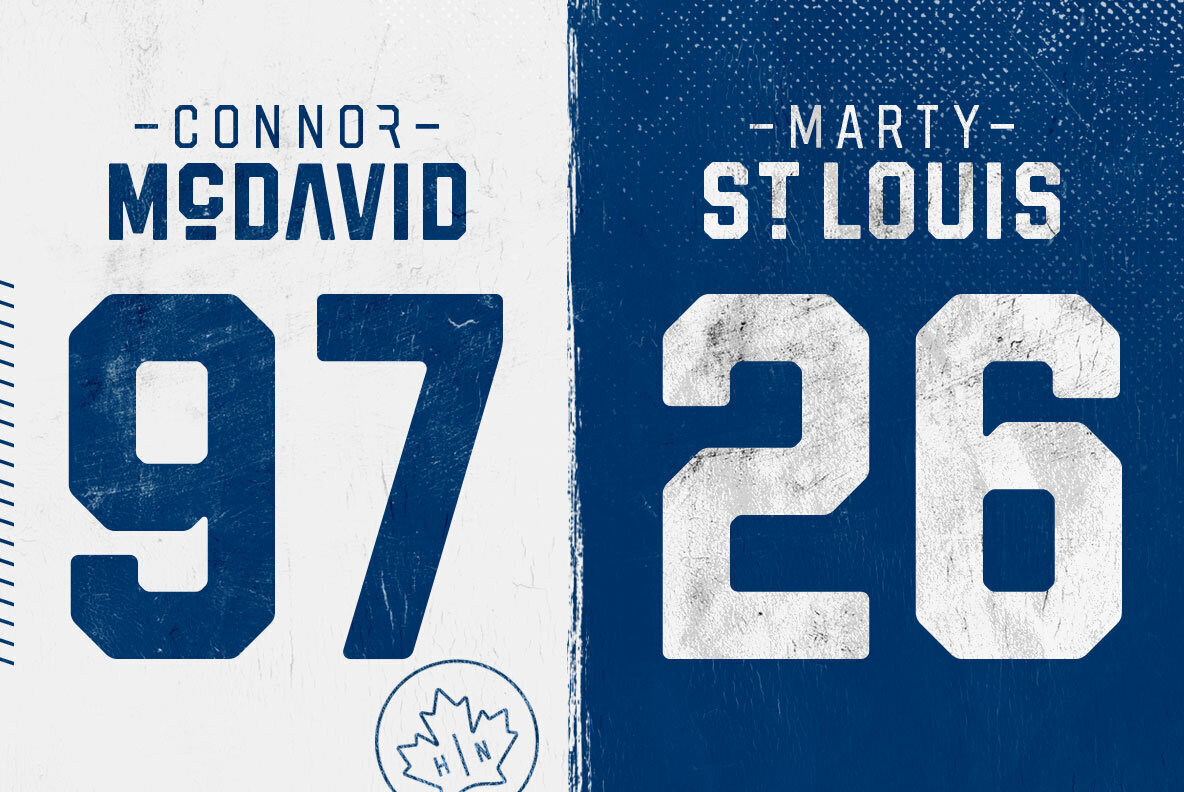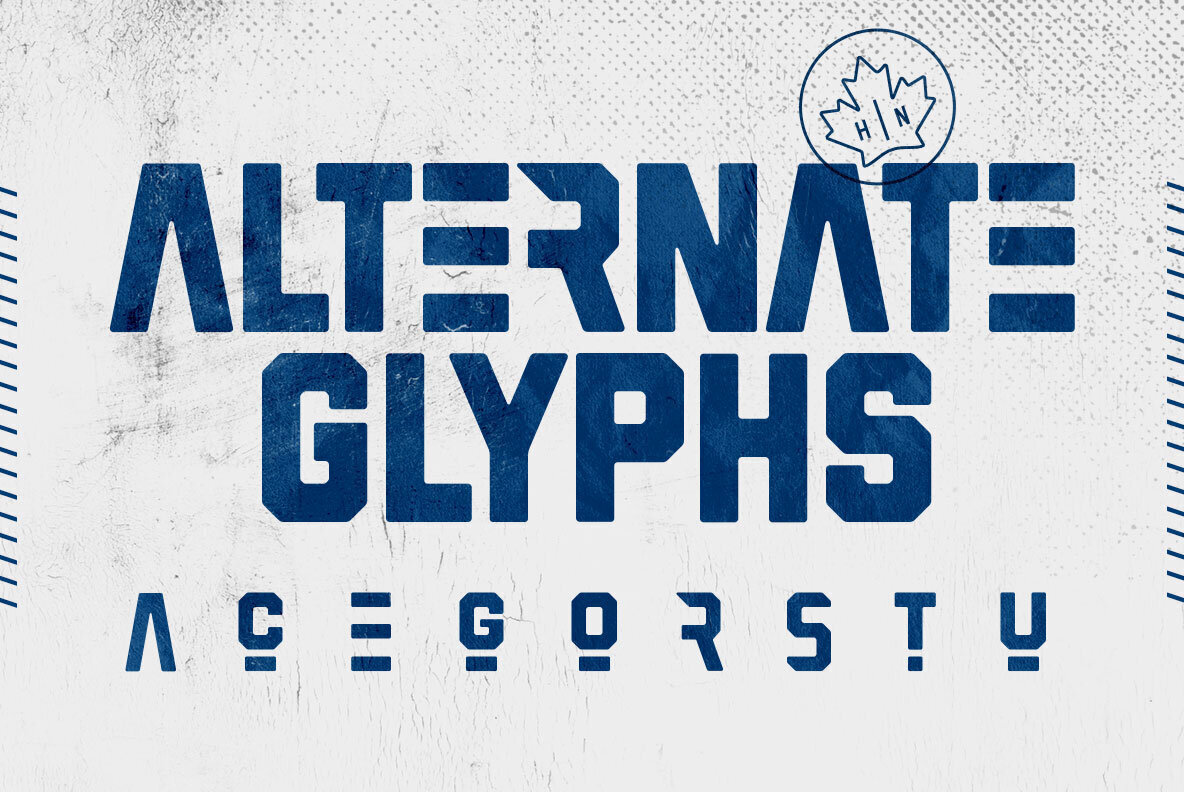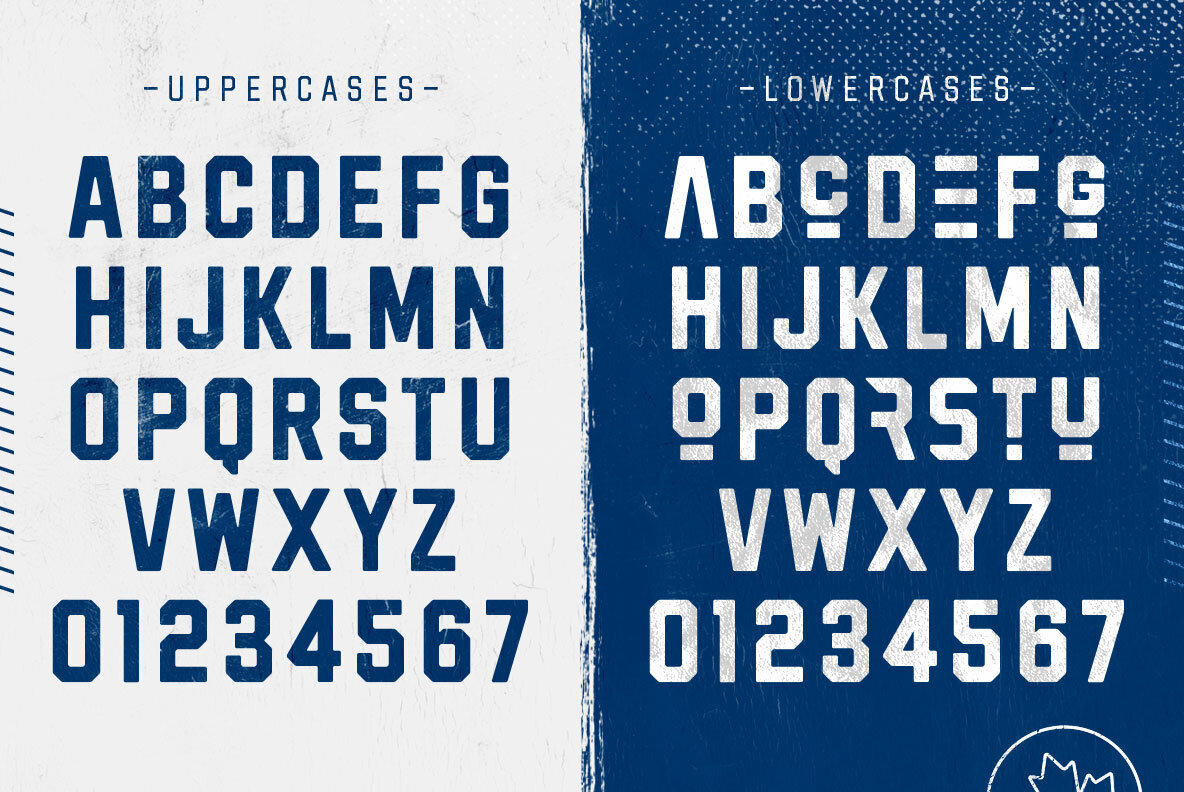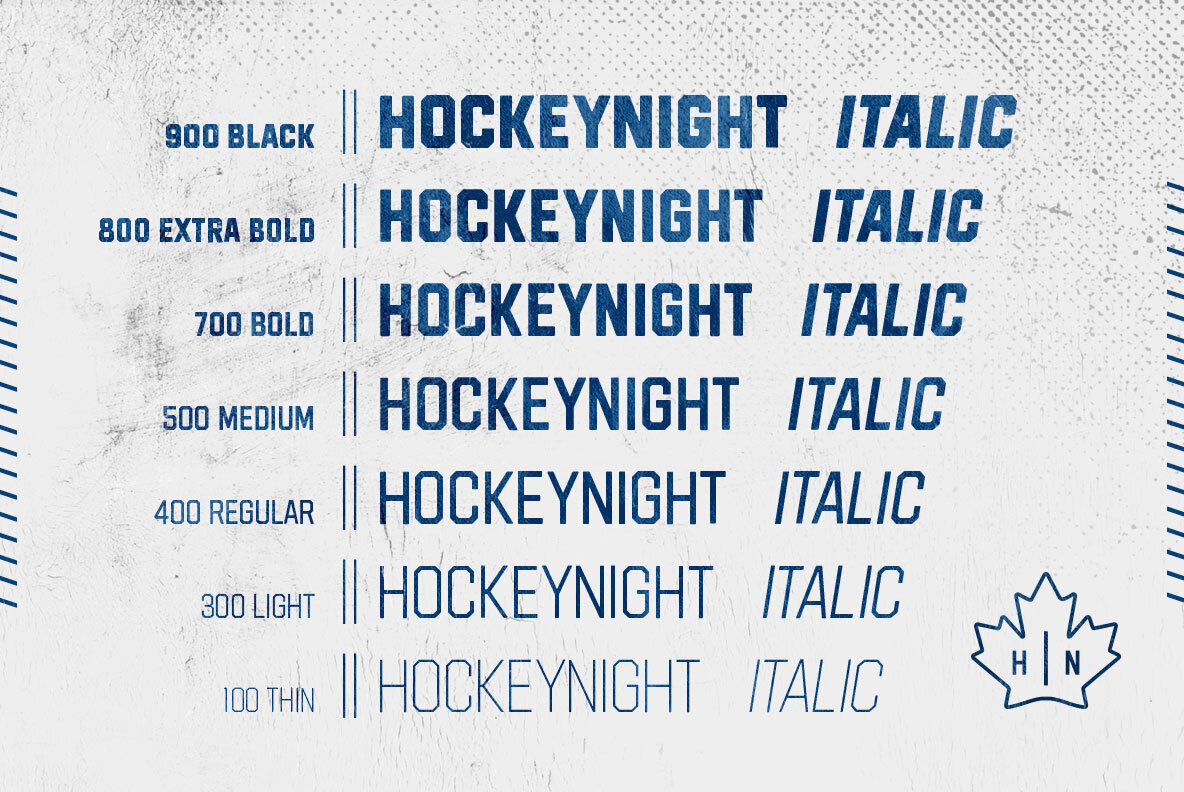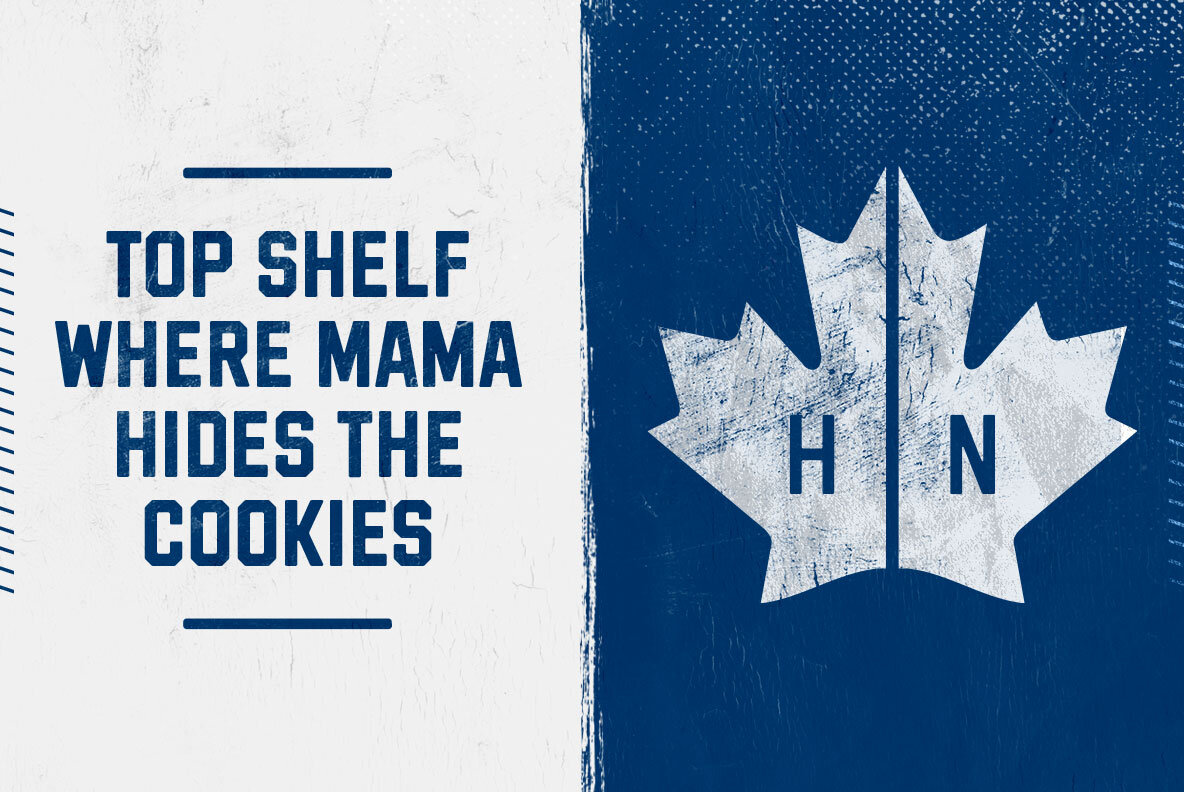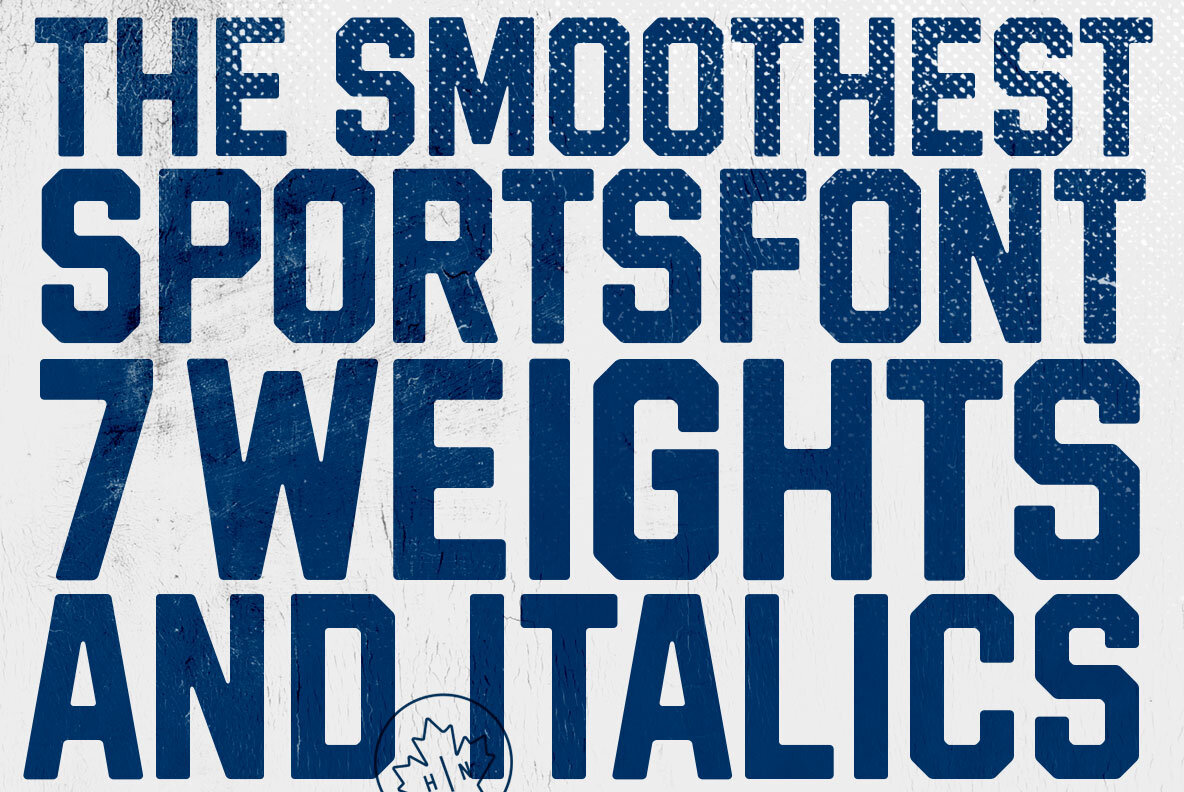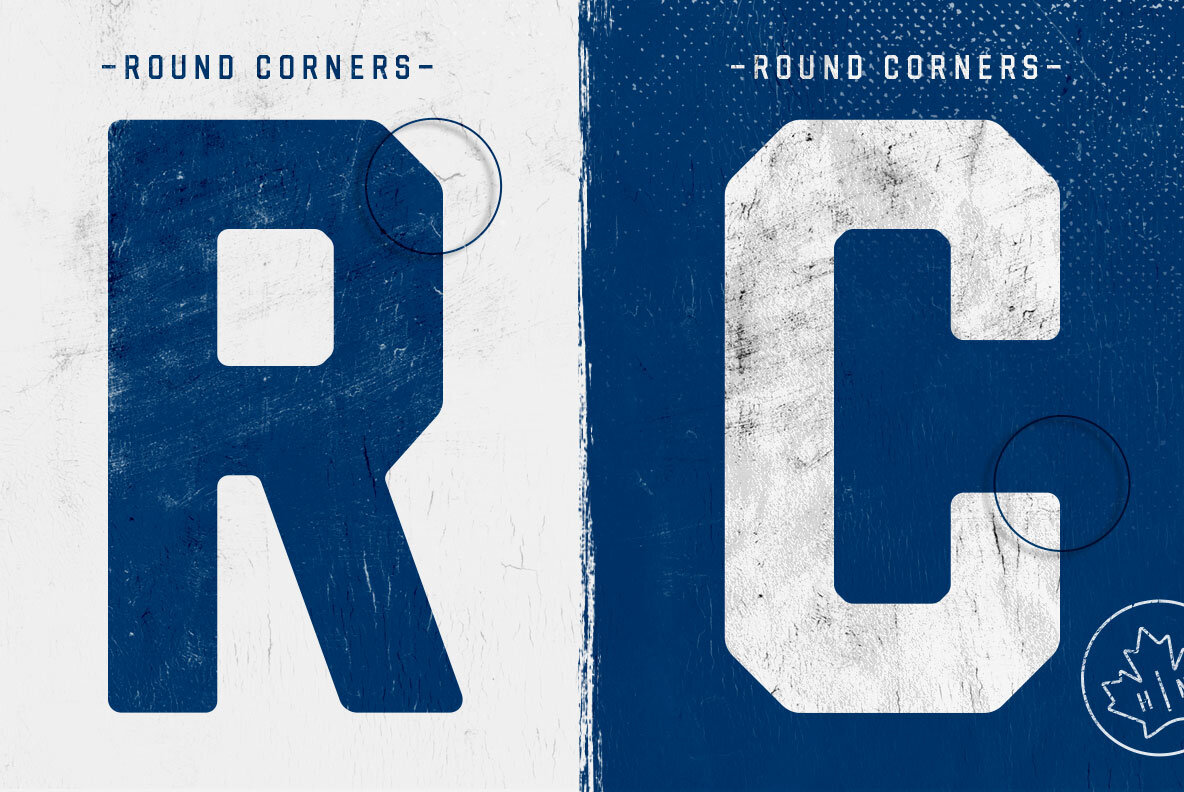
Hockeynight Sans Font
Hockeynight is the most elegant and cleanest sports font you'll find. Mix it between its 7 weights with some bold or dirty styles for that unique touch on your logo designs.